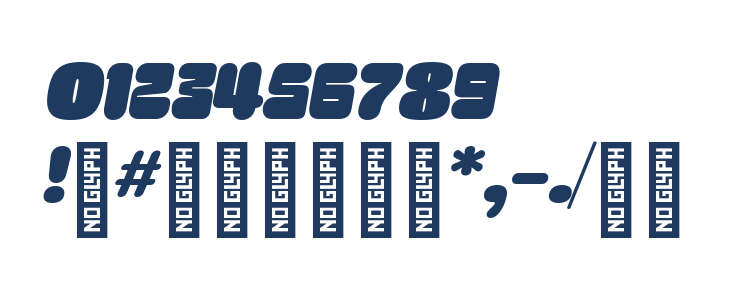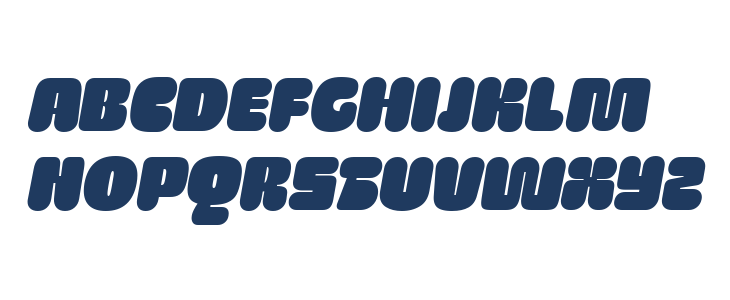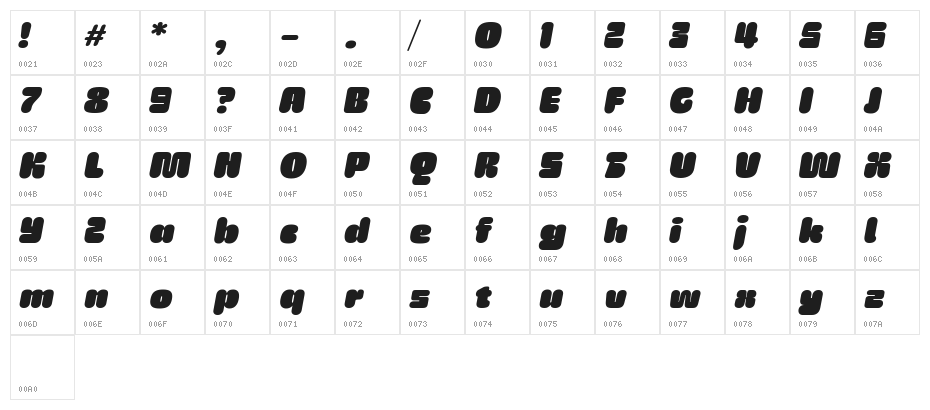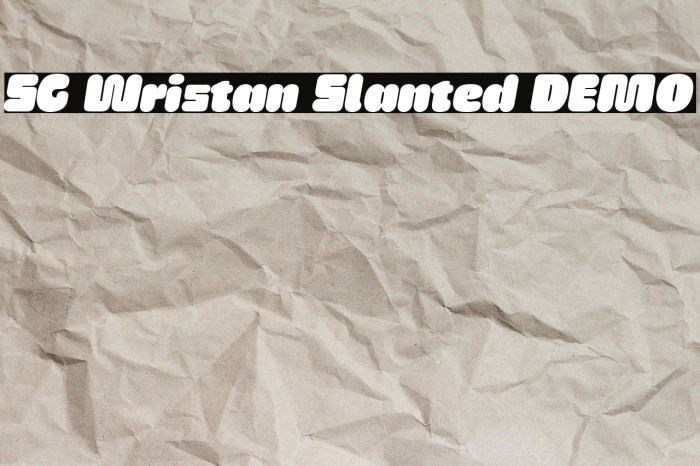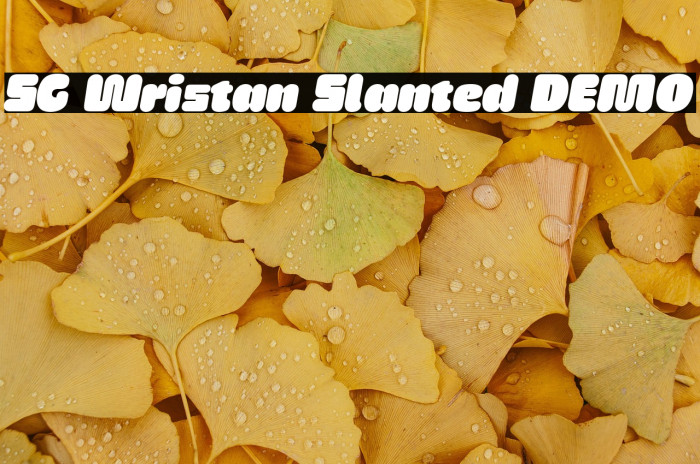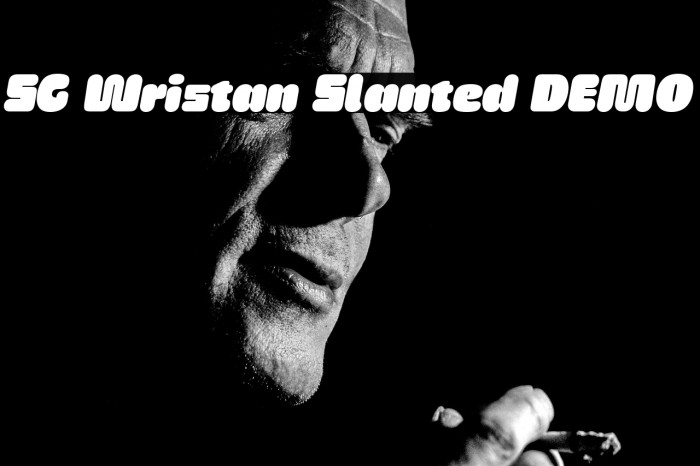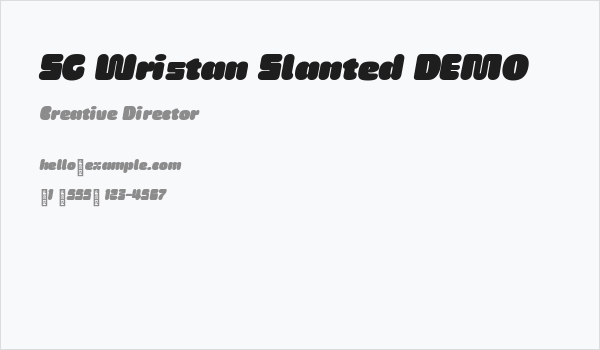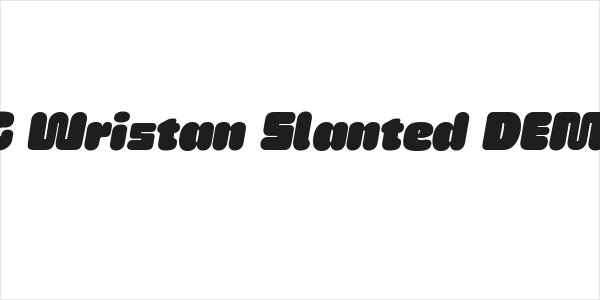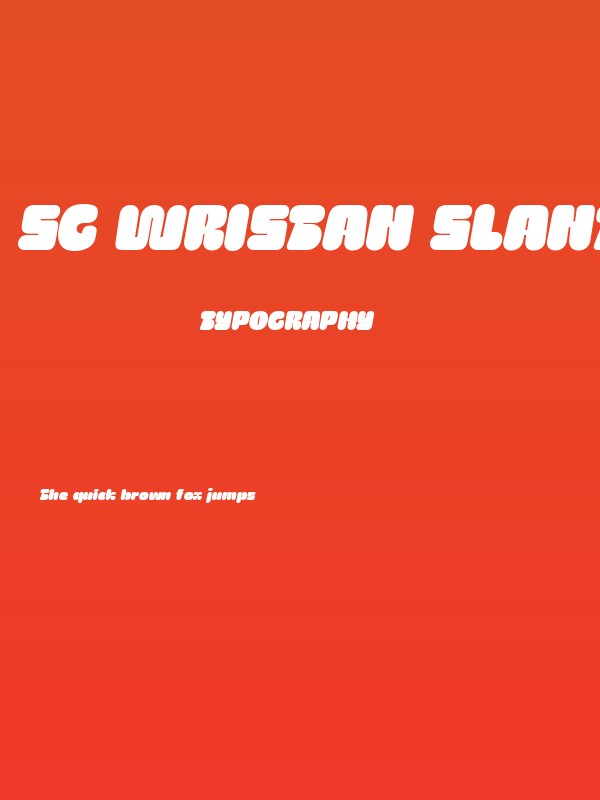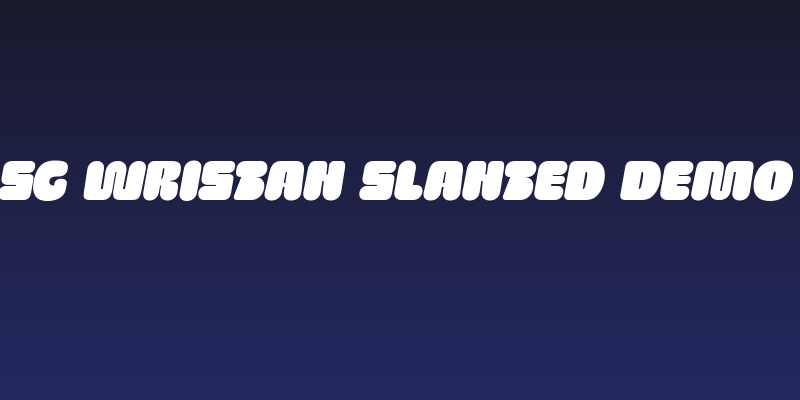
SG Wristan Slanted DEMO Font
SG Wristan Slanted DEMO Description
A bold, rounded sans-serif typeface with a slanted, italicized appearance. The characters are thick, have soft corners, and maintain consistent stroke width throughout. The overall look is playful and modern, with wide letterforms and tight character spacing.
| Overall Style | Modern, Decorative, Playful |
| Use Case | Headlines, Logos, Posters, Display text |
| Proposed Projects | Posters, branding, packaging, childrenΓ’β¬β’s products, event flyers, social media graphics. |